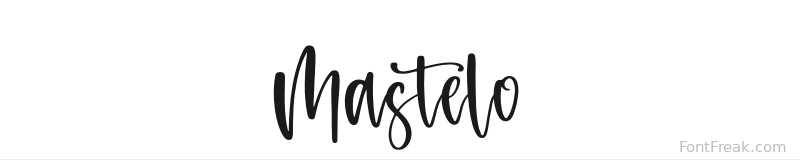
Mastelo
Mastelo Italic
About Mastelo
Mastelo is a captivating script font designed by Perspectype Studio, released in 2021 as freeware. This font exemplifies a modern calligraphic style, characterized by its elegant, flowing lines and graceful curves. The stroke weight varies throughout, creating a dynamic contrast that enhances its visual appeal. The spacing is well-balanced, allowing for comfortable readability while maintaining a stylish flair. Decorative elements are subtly integrated, giving Mastelo a sophisticated yet approachable look.
Ideal for a variety of applications, Mastelo shines in contexts where a touch of elegance is desired. It is perfect for wedding invitations, where its romantic style can set the tone for a special day. Additionally, this font works wonderfully for movie posters, enabling designers to convey a sense of drama and artistry. Restaurant menus can benefit from Mastelo's inviting aesthetic, helping to create a warm atmosphere that draws customers in. Furthermore, content creators looking to add a personal touch to their projects will find this font a valuable asset for social media graphics and branding.
Targeting graphic designers, small business owners, and content creators, Mastelo offers a unique blend of beauty and functionality. Its versatility makes it suitable for both professional and personal projects, appealing to those who appreciate fine typography.
What truly sets the Mastelo font apart is its ability to evoke emotion while remaining versatile in design applications. The combination of its modern calligraphic style and free availability makes the Mastelo font free download an attractive option for anyone looking to elevate their visual communication. With its charm and elegance, Mastelo is sure to leave a lasting impression.